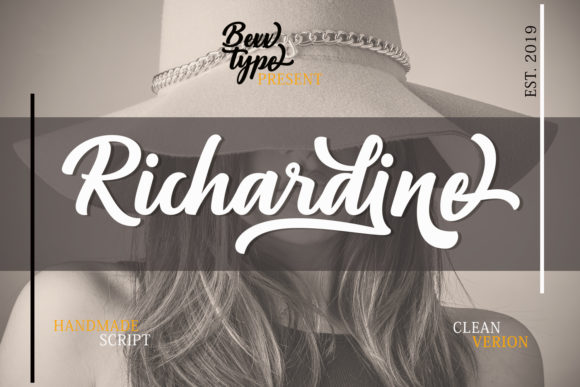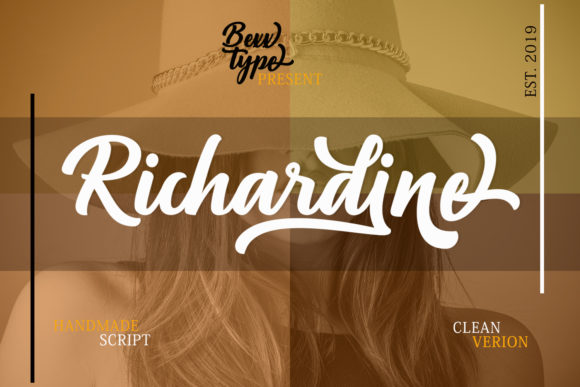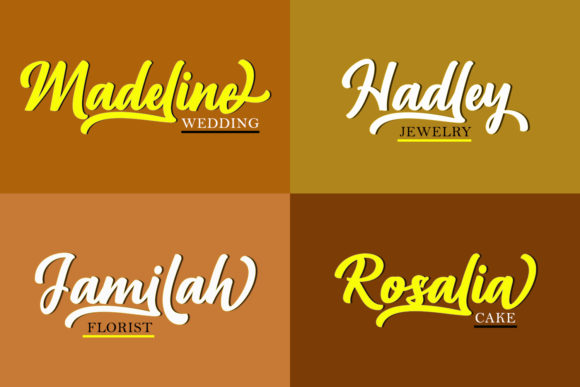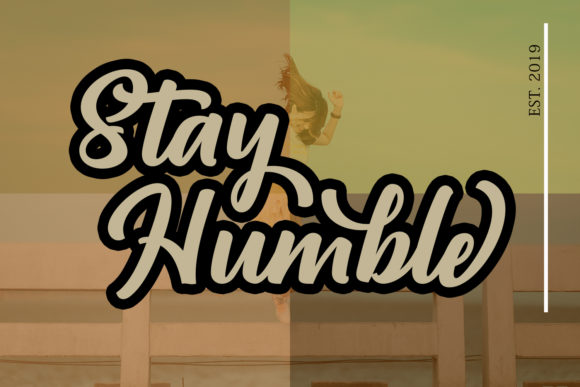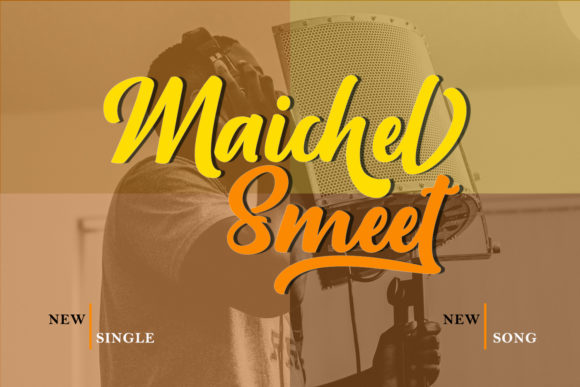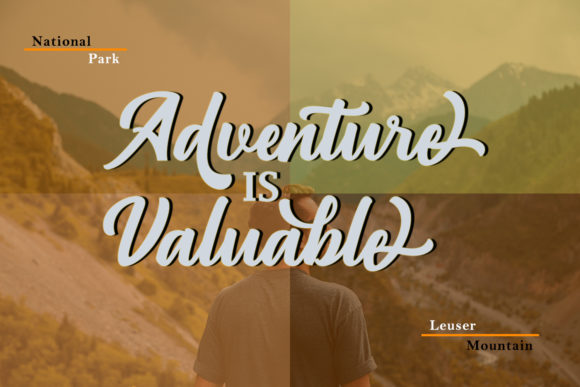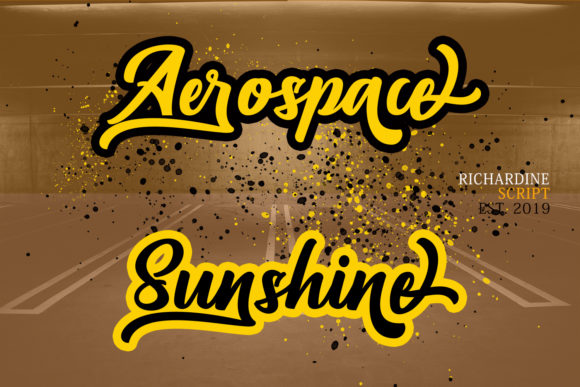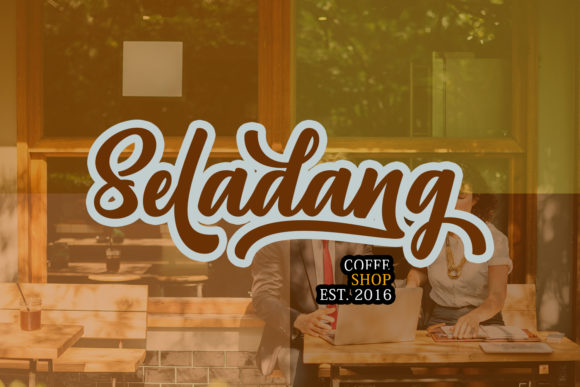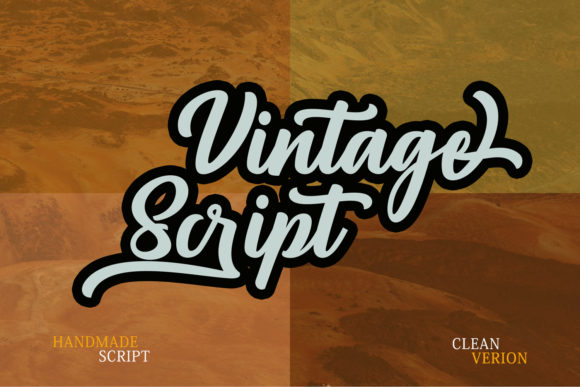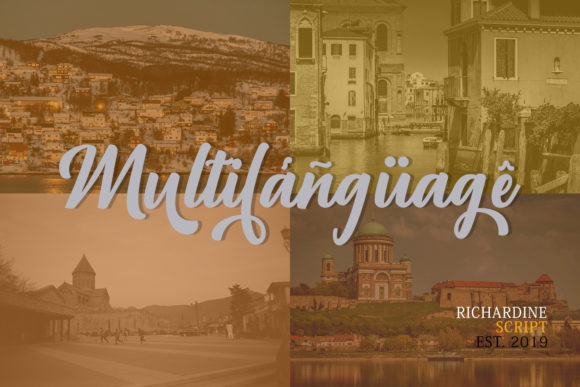
Richardine Script Font
About Richardine Script Font
The Richardine Script is a retro signage font with a bold and clean style. With this font you are able to create so many different typographical layouts easily and quickly.
It’s suitable for t-shirts, signage, logos, headlines, branding, packaging, etc.